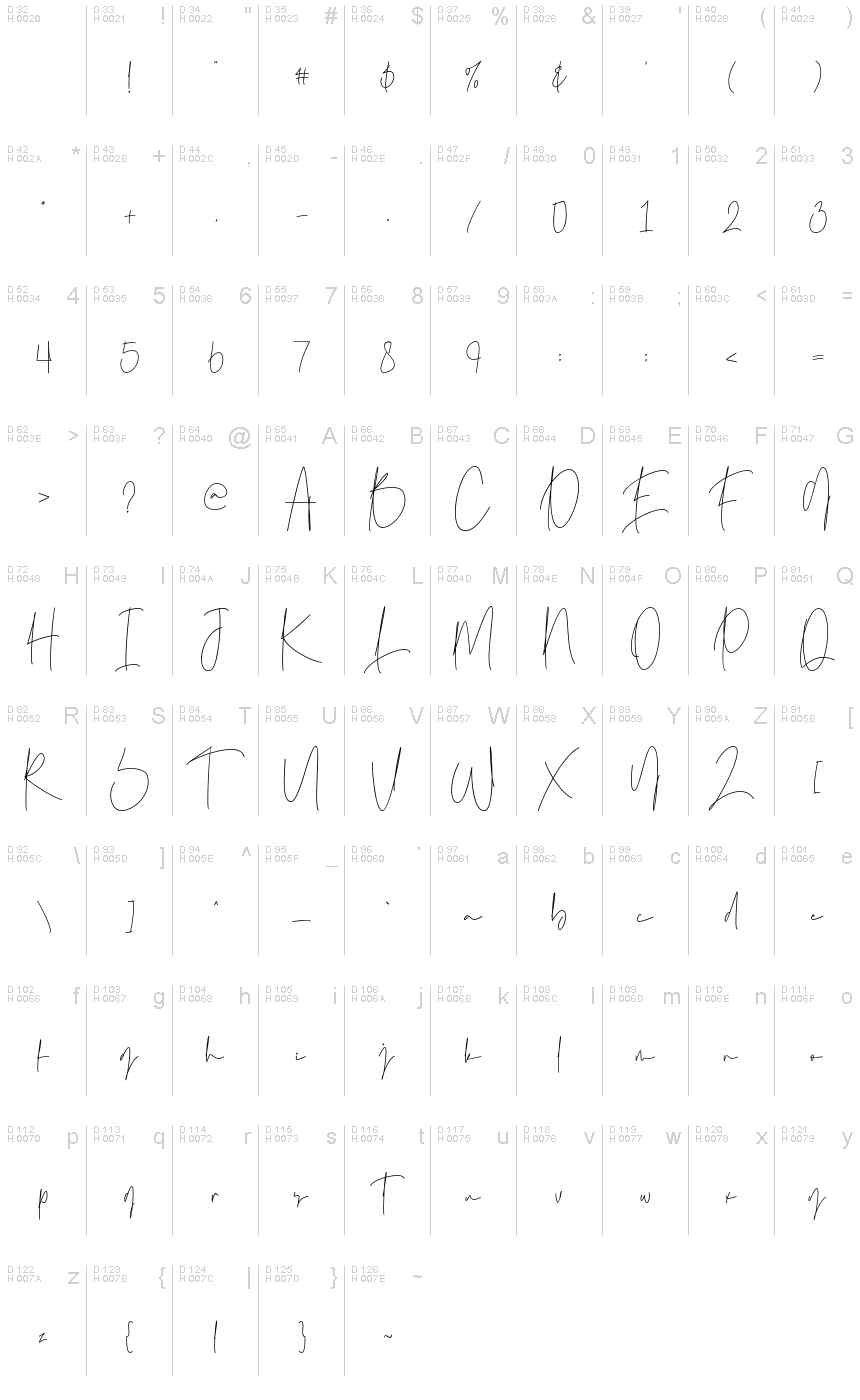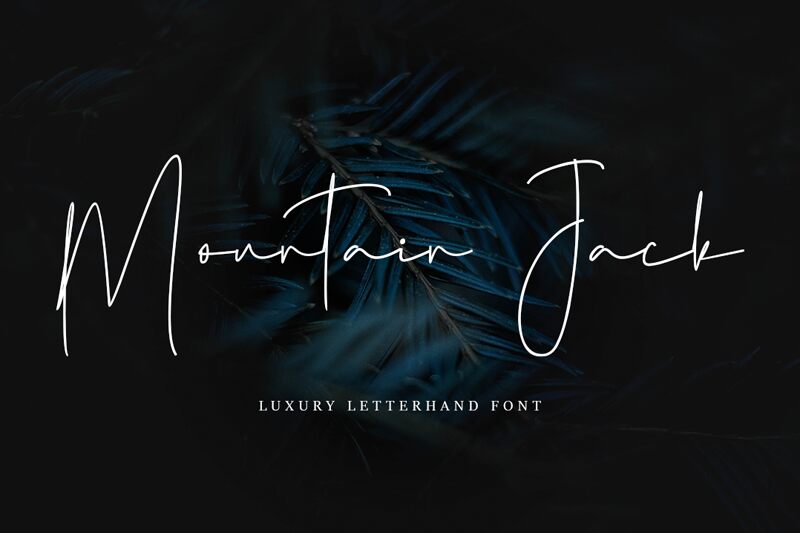
Mountain Jack
Mountain Jack font, designed by Moove Studio, features a casual handwritten script with playful loops and irregular hand lettering. Its soft flowing and gentle curves give it a personal touch that adds to its elegance. This signature style font is brought to you in a light-weight version which is ideal for your delicate typography needs. The organic feel of the characters gives it the added value of providing visual uniqueness; something audiences find pleasing these days when everything looks too similar.
This free font shall personalize stationary designs like notebooks and stickers. It works great in business card stationery or branding design where using this typeface as an aloe vera symbol exhibits modernity and innovation; two important ideas for successful business ventures today!